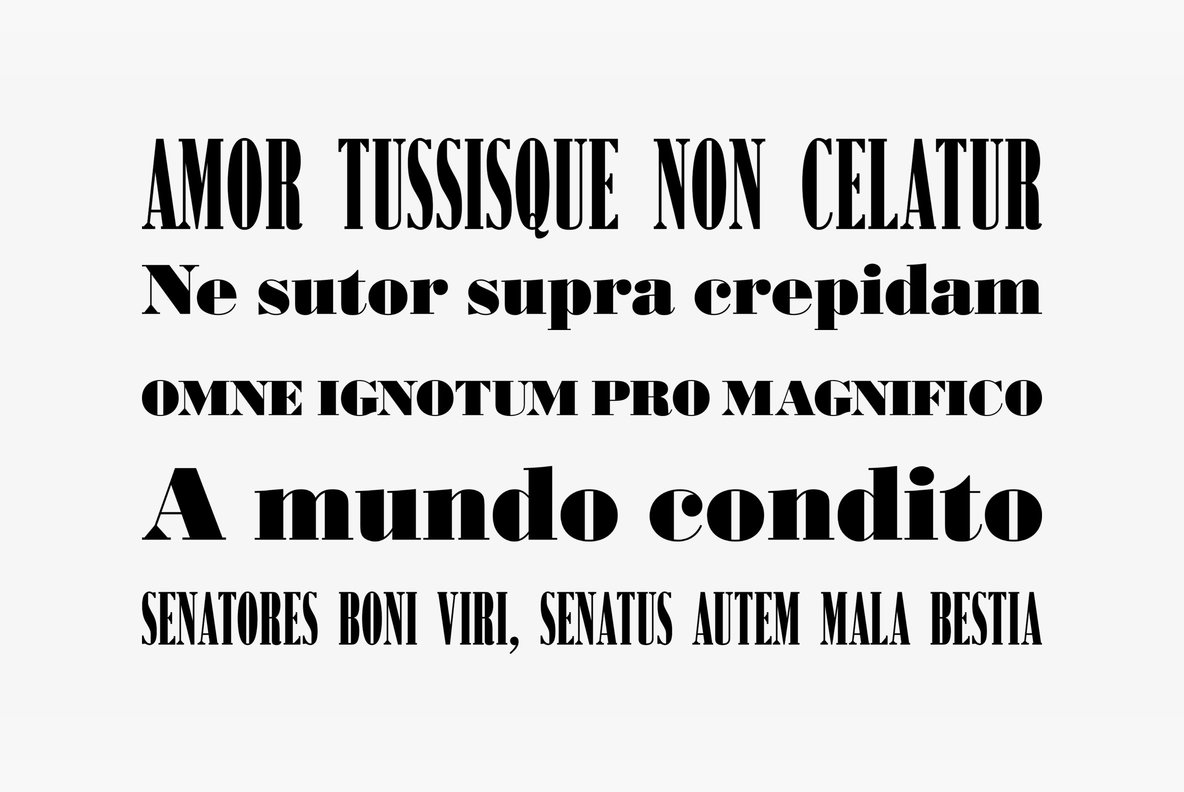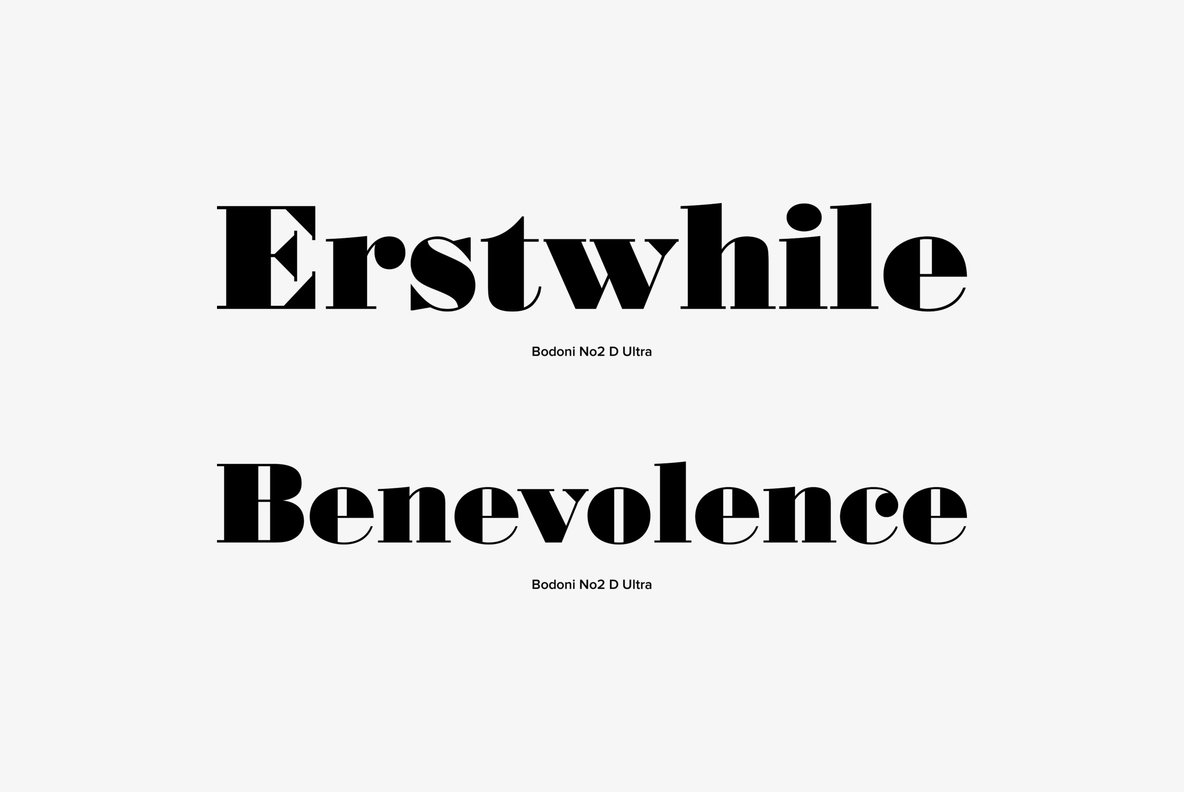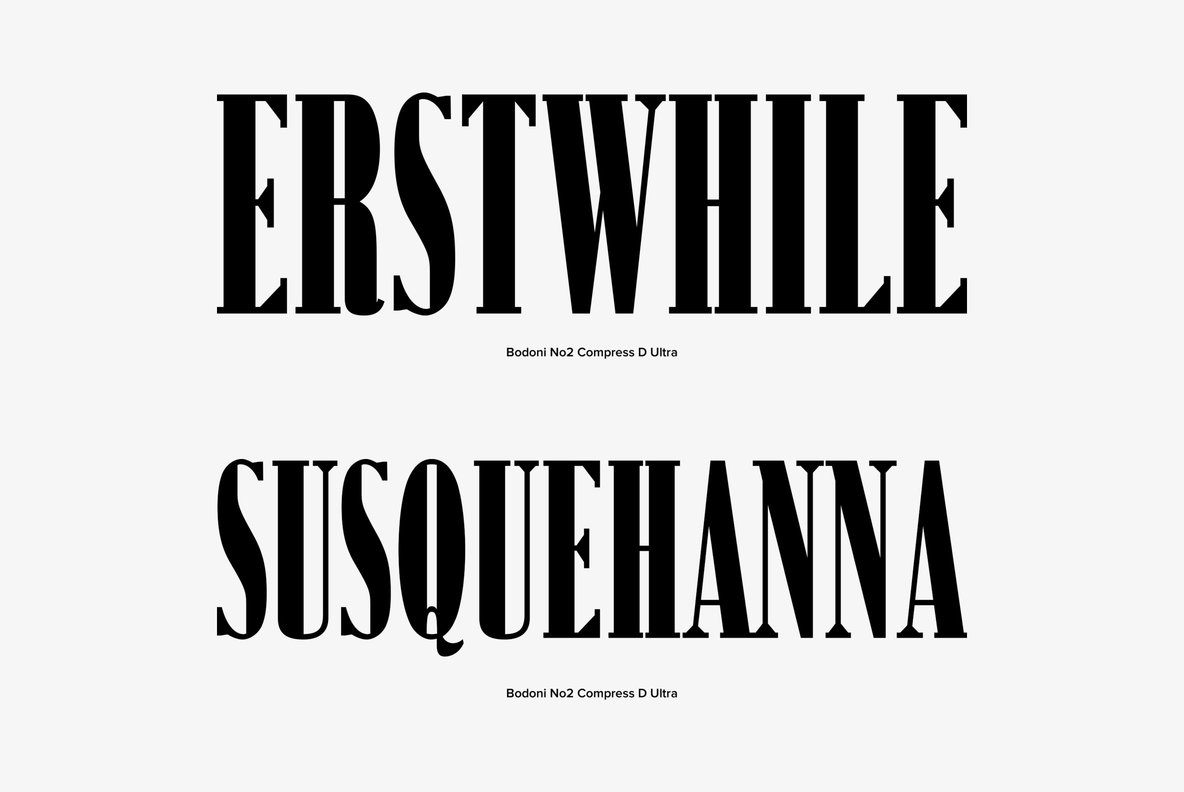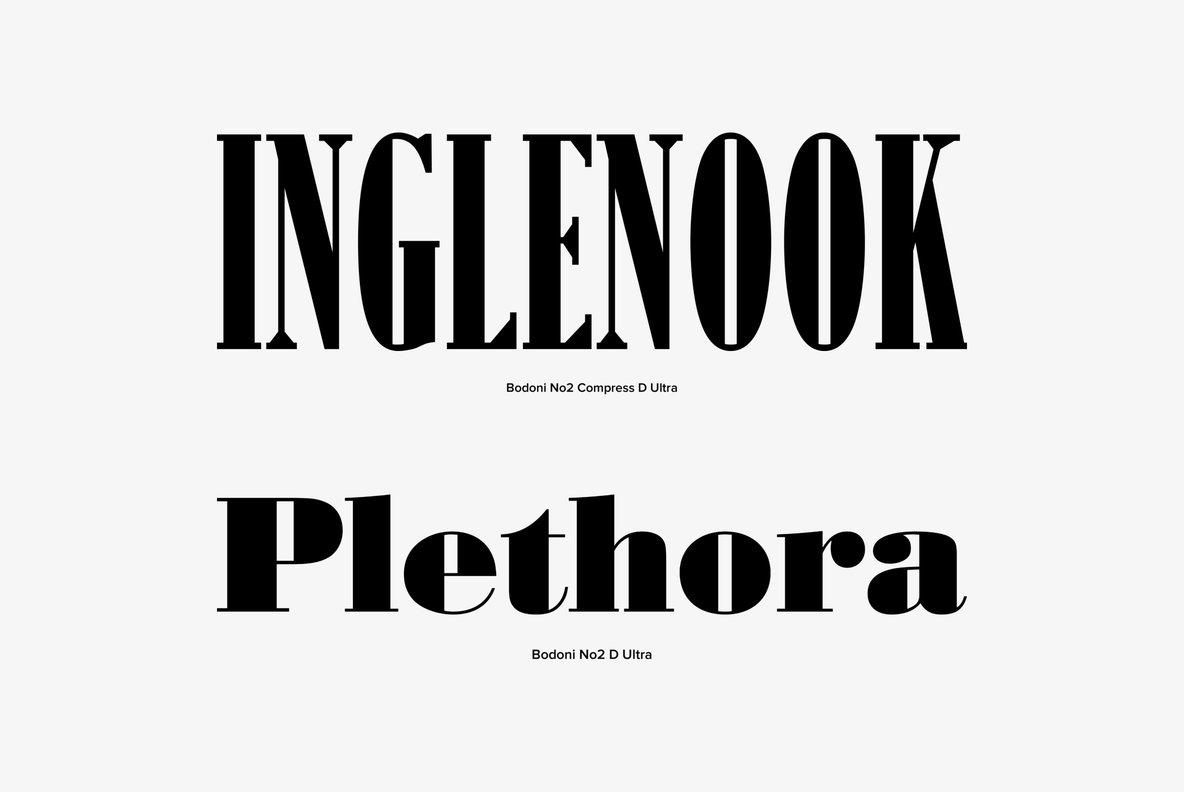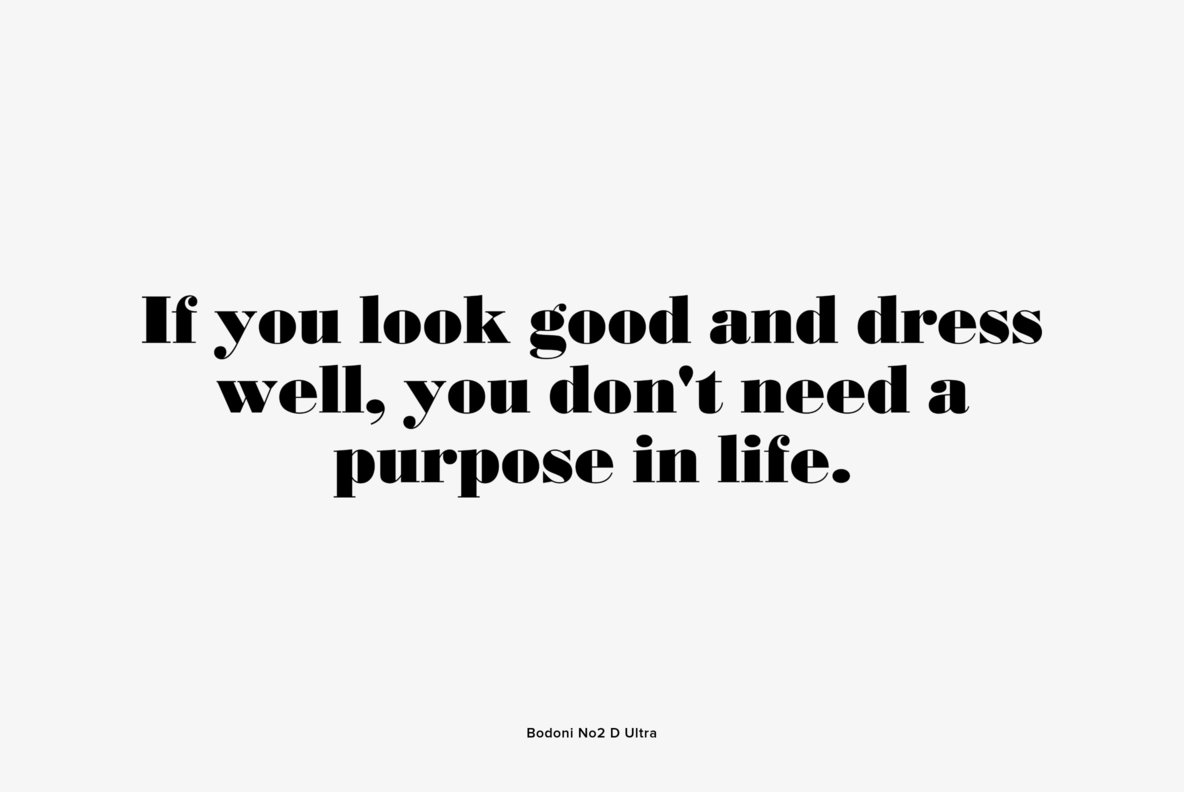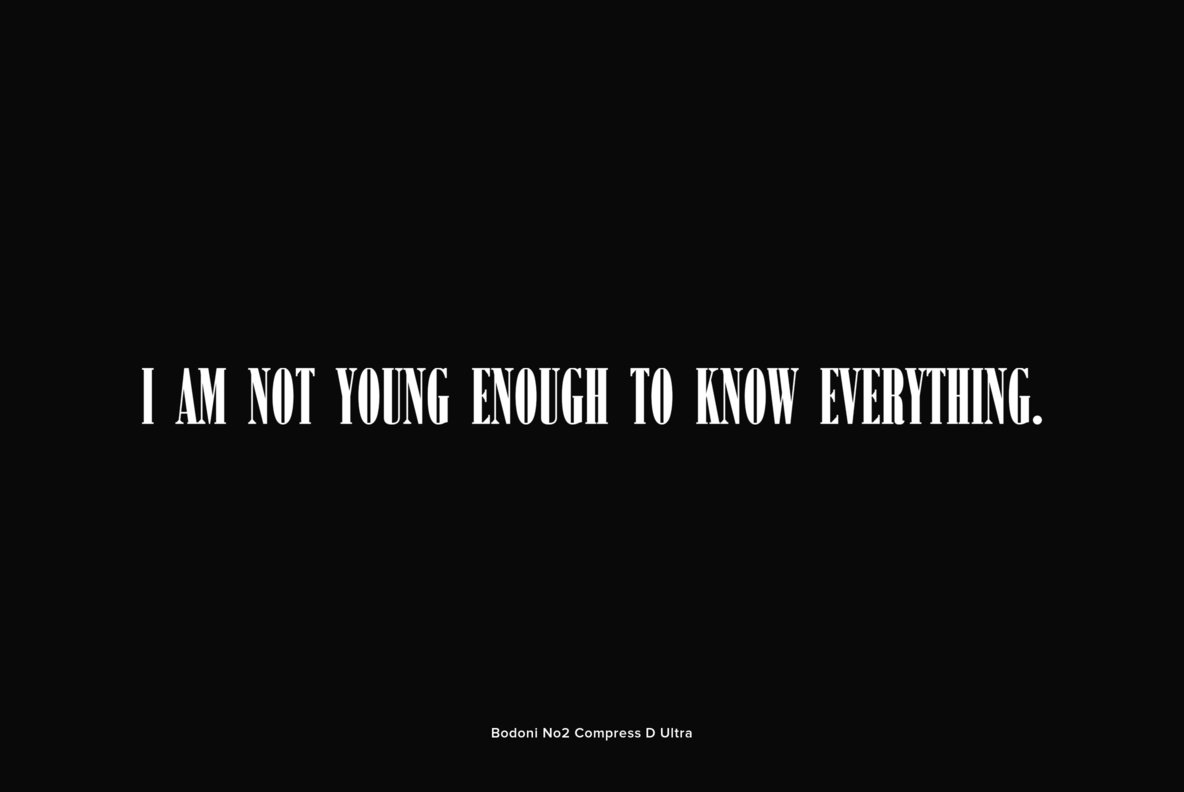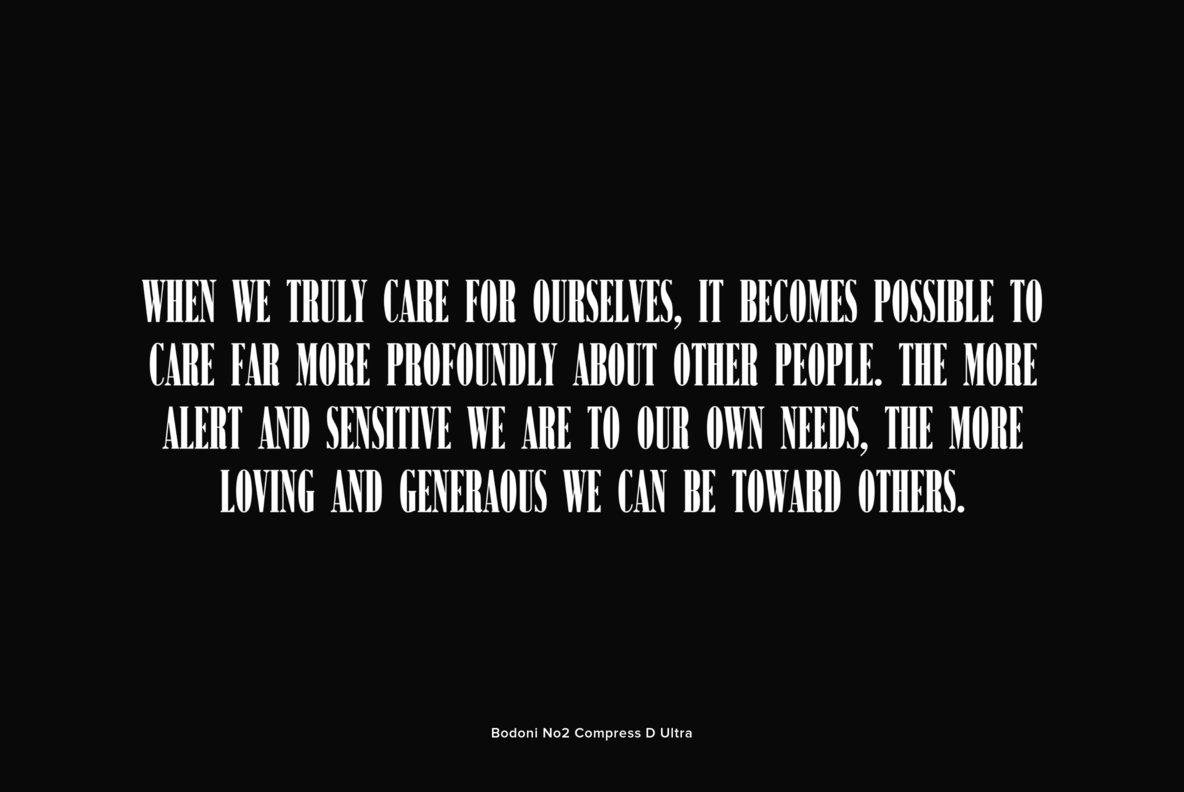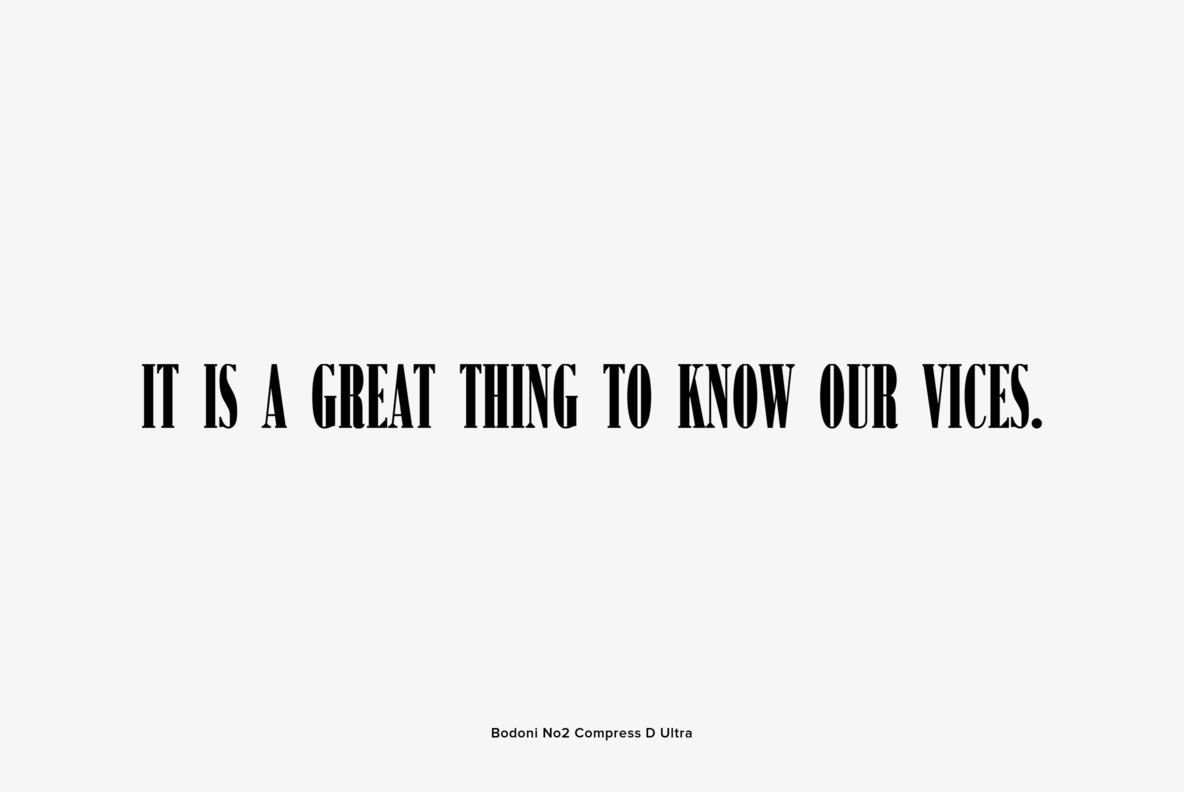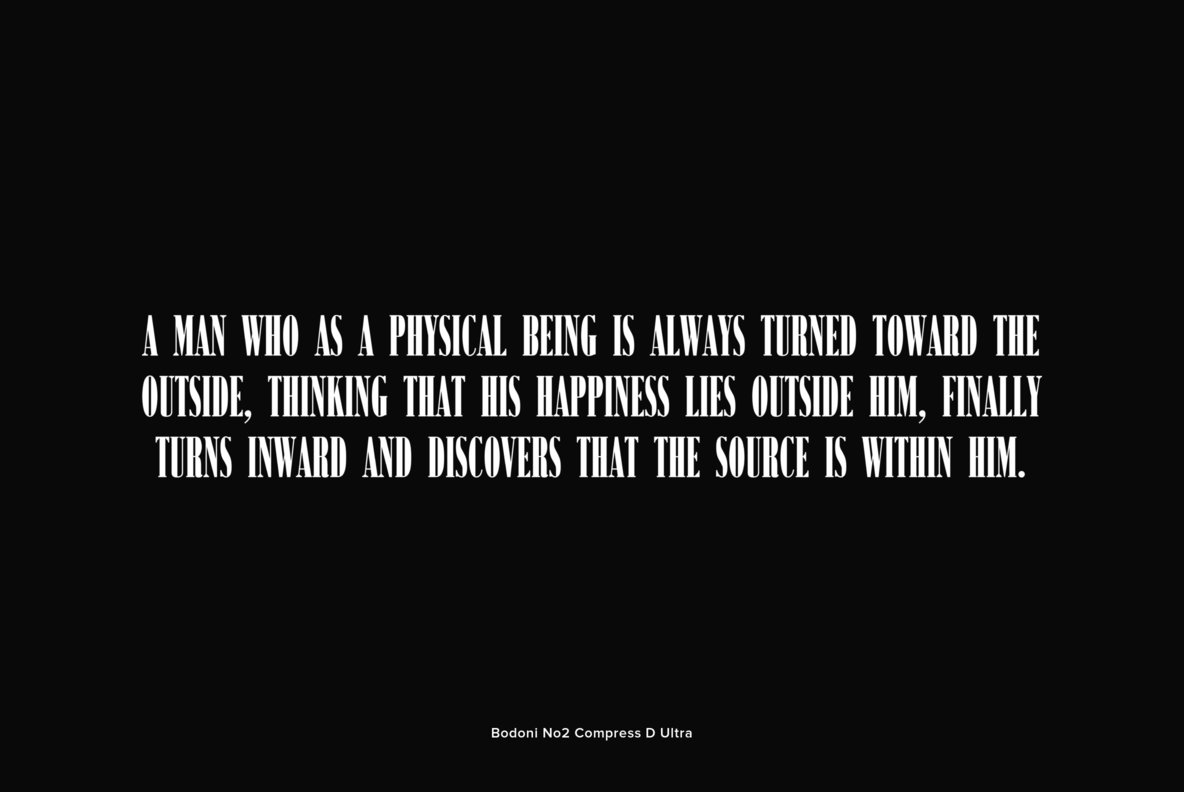
Bodoni No 2 was originally designed by Morris Fuller Benton in 1928. This version of Bodoni contains language support for West, East, Turkish, Baltic, and Romanian.
Bodoni No 2 was originally designed by Morris Fuller Benton in 1928. This version of Bodoni contains language support for West, East, Turkish, Baltic, and Romanian. The typeface is classified as didone modern. Bodoni followed the ideas of John Baskerville, as found in the printing type Baskerville, that of increased stroke contrast and a more vertical, slightly condensed, upper case, but taking them to a more extreme conclusion. Bodoni had a long career and his designs evolved and differed, ending with a typeface of narrower underlying structure with flat, unbracketed serifs, extreme contrast between thick and thin strokes, and an overall geometric construction. Though these later designs are rightfully called "modern", the earlier designs are "transitional".
Bodoni admired the work of John Baskerville and studied in detail the designs of French type founders Pierre Simon Fournier and Firmin Didot. Although he drew inspiration from the work of these designers, above all from Didot, no doubt Bodoni found his own style for his typefaces, which deservedly gained worldwide acceptance among printers.